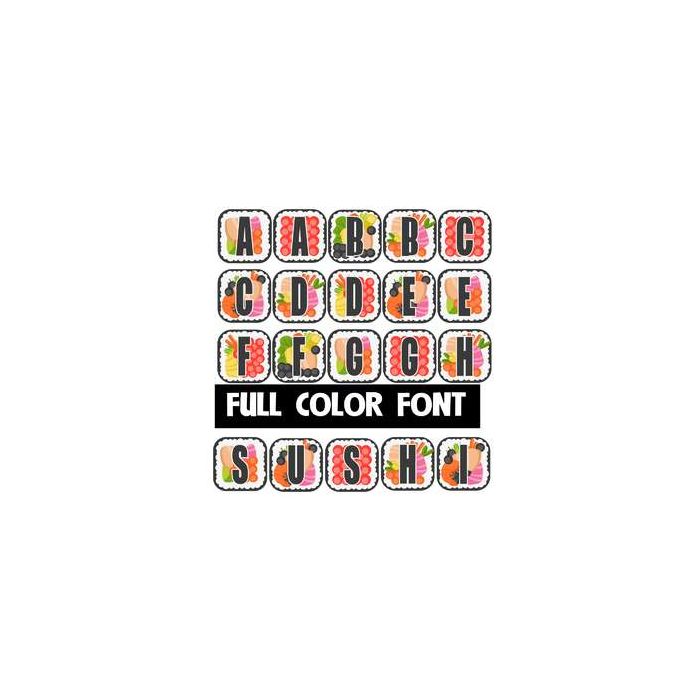
This full-color font features letters on colorful sushi. This font works best for titles, displays, posters and more. Please note color fonts will show as black in non compatible programs. This font type is compatible with Silhouette Studio